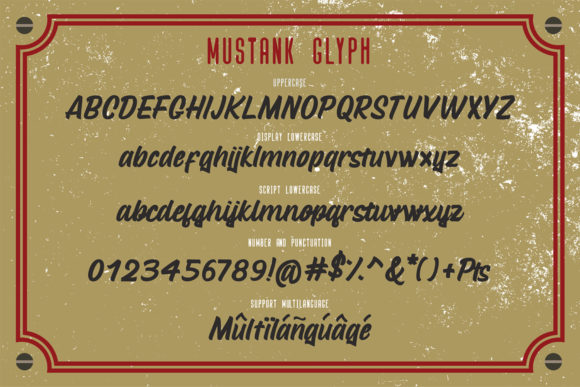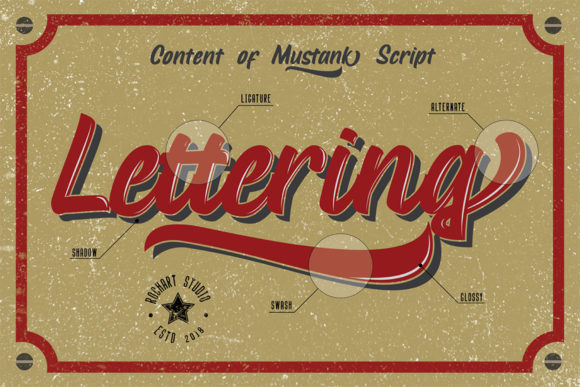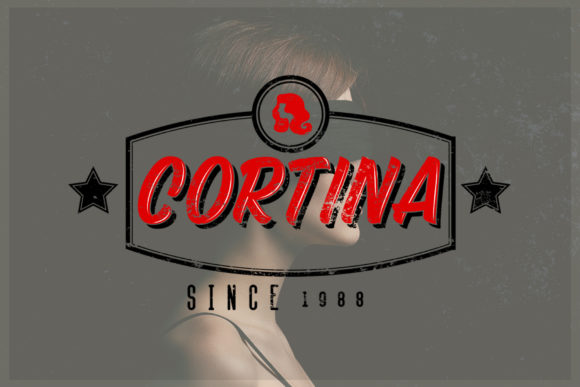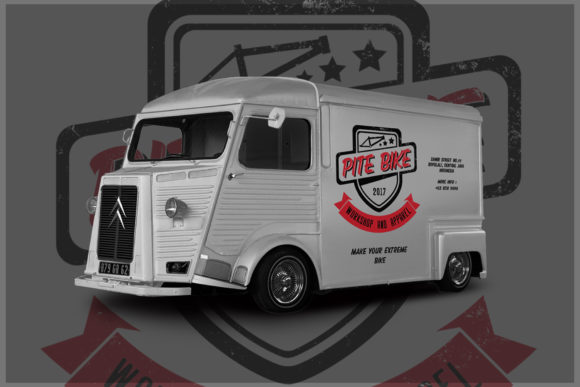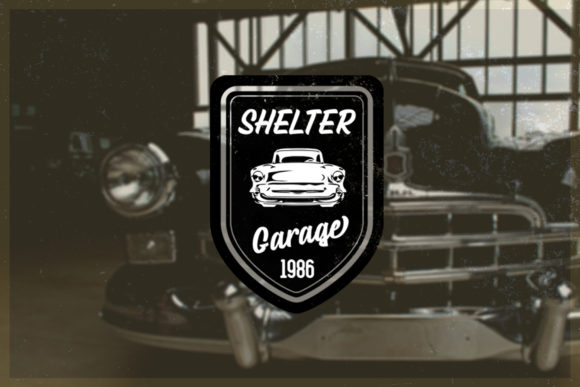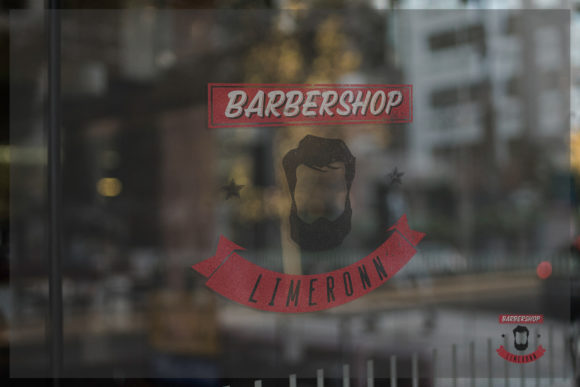
Introduction to Mustank Font
Have you ever stared at a blank canvas, trying to bring your creative vision to life, only to be held back by the perfect font? It’s a frustrating feeling, but one that many designers know all too well. That’s why we’re excited to introduce you to the Mustank Font, a stunning collection of casual yet striking typefaces designed to elevate your creative project.
The Mustank Font is more than just a design resource – it’s a game-changer for designers looking to add a touch of sophistication to their work. With its high-quality designs and transparent background, this font is perfect for logos, t-shirts, flyers, apparel, packaging, and advertising. And the best part? It’s available for free download, making it an invaluable addition to any designer’s toolkit.
Key Features of Mustank Font
- High-quality design resource for creative projects, offering a unique and professional look.
- Features a transparent background, allowing for easy layering and composition in design projects.
- Comes in a range of sizes, from 12 to 72 points, making it suitable for various design applications.
- Resolution: 300 DPI, ensuring crisp and clear display on high-resolution devices.
- Unique characteristics, including a bold and modern aesthetic, set it apart from other fonts in its class.
Honest Review: Mustank Font
I recently had the opportunity to work with the Mustank Font for a creative project, and I must say it was a great experience. As a designer, I’m always on the lookout for high-quality design resources that can elevate my work. The Mustank Font did not disappoint.
What works well with this font is its versatility. It comes with a transparent background, which makes it easy to use in any design project. The font itself is also highly customizable, allowing me to adjust the size, color, and style to fit my needs. Additionally, it’s a free download, which is always a plus.
The following are some of the key features that make the Mustank Font a great design resource:
- Highly customizable with adjustable size, color, and style
However, I did encounter some limitations when using the Mustank Font. For example, it’s not ideal for very large text sizes, and the font can become distorted if used at too high a resolution. ⚠️
Overall, I’m impressed with the Mustank Font and would definitely recommend it to fellow designers. It’s a great addition to any design toolkit, and I’m looking forward to using it in future projects. ✨
The Mustank Font is a high-quality design resource ideal for creative projects. It’s free to download and features a transparent background, making it versatile for various applications.
For optimal results, use the Mustank Font in combination with other design elements, such as graphics and textures.
Experiment with different font sizes, colors, and styles to create a unique visual identity.
The Mustank Font is suitable for a variety of creative projects, including:
Logos and branding materials
Infographics and data visualizations
Print materials, such as business cards and brochures
Alternatives to Mustank Font
Abril Fatface is a high-quality, elegant font ideal for creative projects that require sophistication and style. It features a transparent background and a wide range of uses, from headings to titles. When to use: Magazine covers, wedding invitations, and high-end branding materials. It compares to Mustank Font by offering a more refined and luxurious feel, making it suitable for more formal and professional designs.
Great Vibes is a unique and creative font that adds a touch of personality to any design. It features a fun and playful style, making it perfect for projects that require a lighthearted tone. When to use: Social media graphics, blog posts, and marketing materials. It compares to Mustank Font by offering a more casual and approachable feel, making it suitable for younger audiences and creative industries.